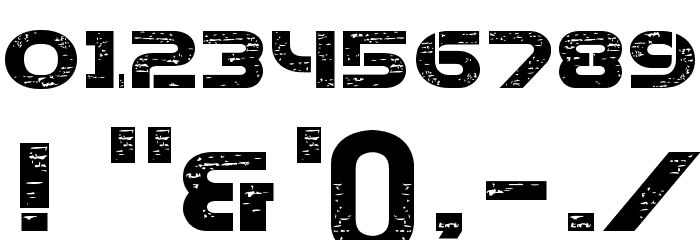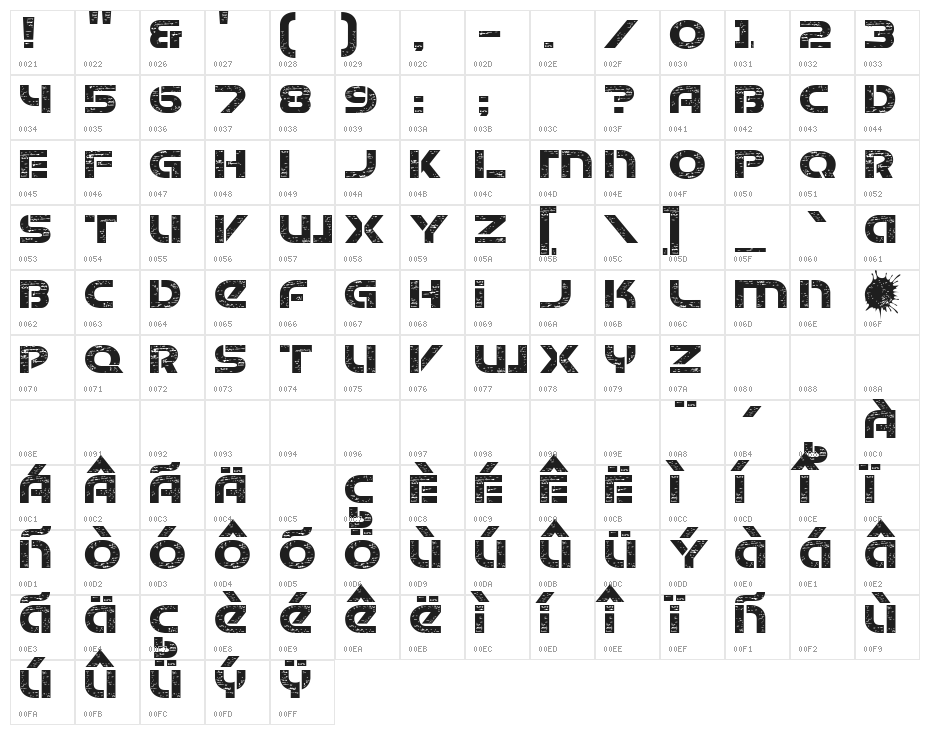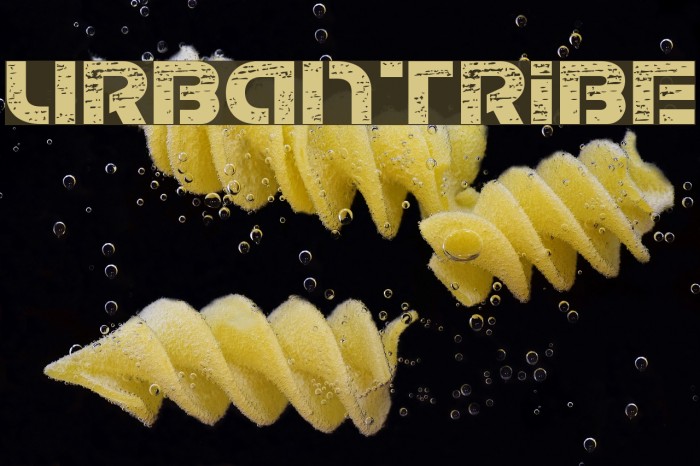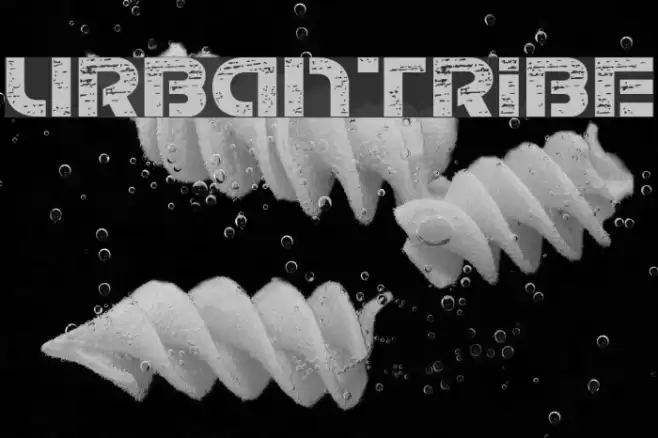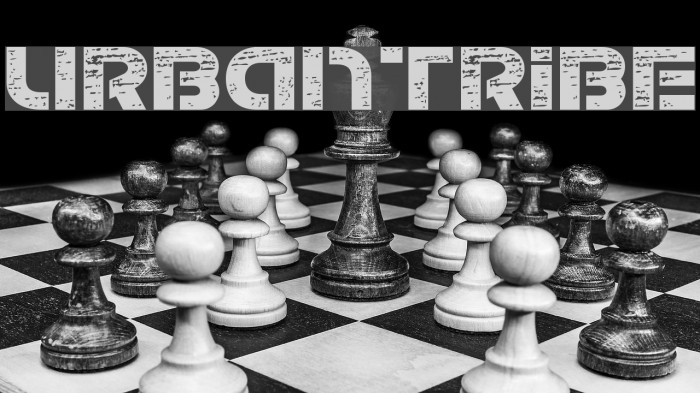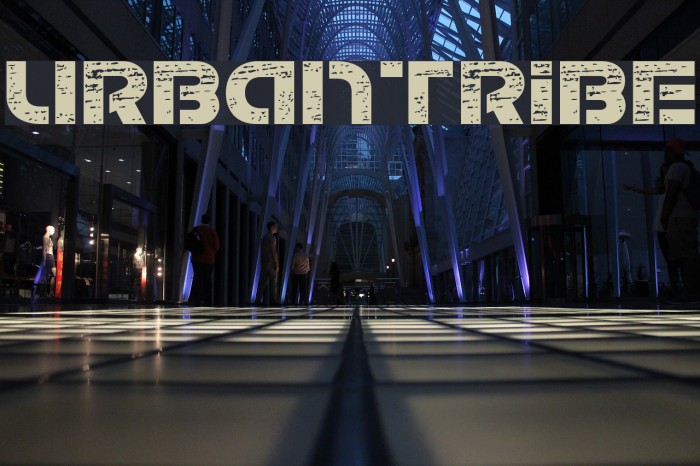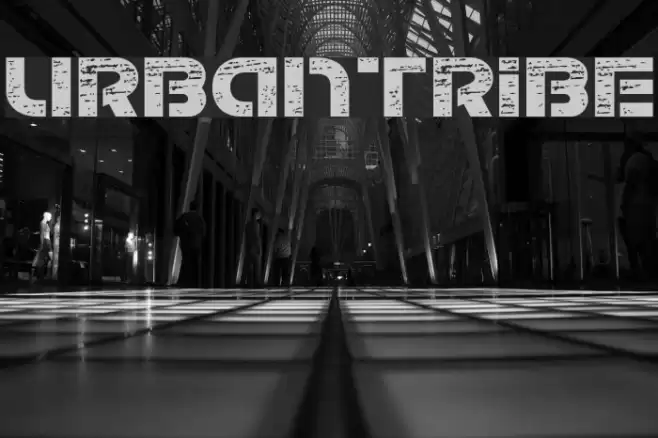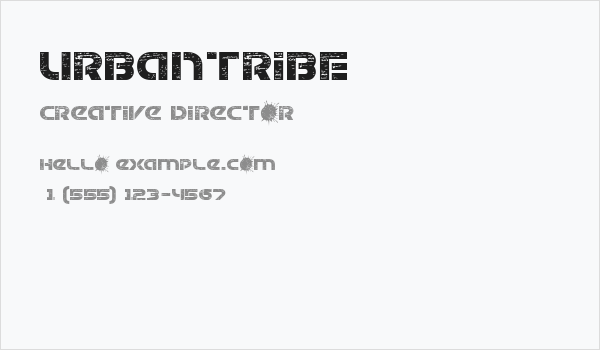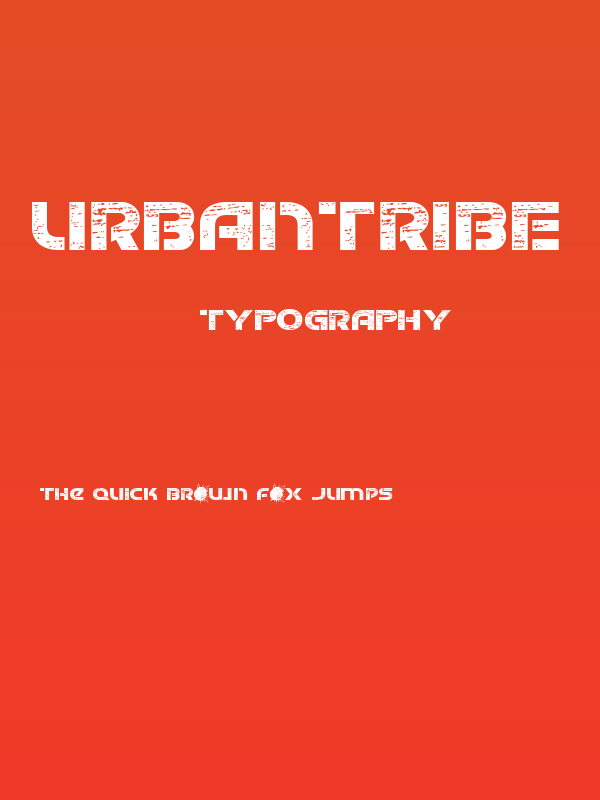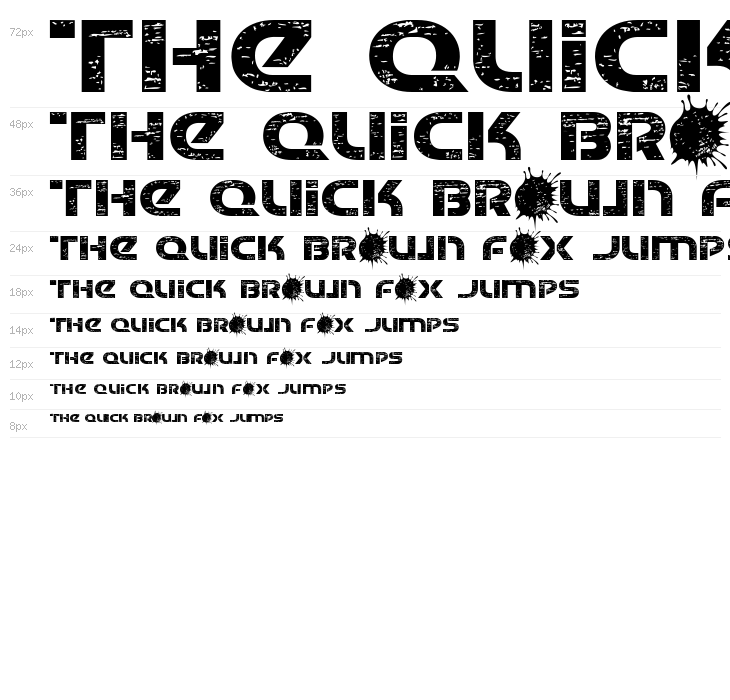
urbantribE Font
urbantribE Description
This font features a bold, distressed style with a modern and edgy aesthetic. The characters are designed with a rough, textured appearance, giving them a worn and urban feel. The uppercase and lowercase letters maintain a consistent width, with geometric shapes and sharp angles that enhance its contemporary look. Numbers and special characters follow the same design, ensuring uniformity across all glyphs. This font is ideal for projects that require a gritty, industrial vibe, such as streetwear branding, music album covers, or urban-themed posters.
| Overall Style | Modern, Edgy, Urban |
| Proposed Projects | Streetwear branding, music album covers, urban-themed posters, graffiti art, and edgy marketing materials. |